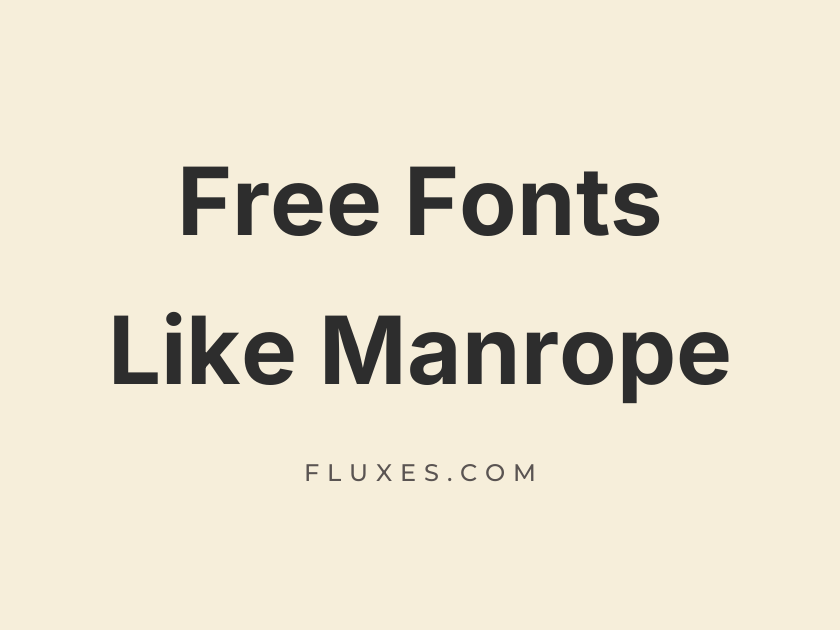
16 Best Free Fonts Similar to Manrope
Manrope has become a go-to typeface for SaaS dashboards, startup landing pages, and product documentation, prized for its geometric bones softened with just enough humanist warmth to stay readable at small UI sizes. Its semi-condensed proportions and quietly distinctive rounded terminals make it a favorite among designers who want something more characterful than Arial but calmer than a display grotesk. If you are hunting for free Google Fonts alternatives with that same balance of structure and approachability, there is a genuinely strong crop of options built for interfaces, branding systems, and long-form web text alike.
1. Inter
Built for screens, buttons, and data-dense dashboards
Inter is the reference point most UI designers measure everything else against, including Manrope itself. It was engineered specifically for computer screens, with tall x-heights and near-neutral letterforms that hold up beautifully in dense interfaces, form fields, and tables. Where Manrope leans slightly warmer and more editorial, Inter stays clinical and endlessly flexible, which is exactly why it has become the default sans for so many product teams.
2. Plus Jakarta Sans
Friendly geometry for modern brand systems
Of everything on this list, Plus Jakarta Sans probably sits closest to Manrope in spirit: geometric skeleton, rounded corners on select cuts, and a friendly, slightly playful demeanor that still reads as professional. It works equally well as a headline face for a fintech landing page or as body copy in a mobile app. Pair it with a monospace for code snippets and it instantly feels like a contemporary product suite.
3. Sora
Confident headlines for tech and startup pages
Sora carries a bit more geometric swagger than Manrope, with rounder bowls and a slightly wider stance that gives headlines real presence. It is best deployed at display sizes, hero sections, pricing tables, feature callouts, where its confident shapes can breathe. At small body text it can feel a touch heavy, so many teams pair it with a lighter grotesk for paragraphs.
4. DM Sans
Clean interface text that never gets muddy
DM Sans was designed low-contrast and sturdy specifically for UI work, and it shows: even at 12px in a settings panel, letters stay distinct and legible. It lacks some of Manrope’s personality in the details, but that restraint is the point when you need a workhorse face that disappears into the product. Consider it whenever the brief calls for clarity over character.
5. Space Grotesk
Technical warmth with a coding-friendly edge
Space Grotesk descends from a monospaced source, and you can still feel that engineering DNA in its slightly quirky curves and generous spacing. It brings a technical, almost retro-futurist mood that suits developer tools, crypto products, and portfolios that want to feel sharp without turning cold. Use it for headings and pair it with a plainer grotesk for long text, since its idiosyncrasies are more fun in short bursts.
6. Outfit
Minimal geometric shapes for clean layouts
Outfit strips things down to near-minimalist geometry, all circles and clean diagonals, giving it a crisp, modern feel close to Manrope’s simplicity but with less warmth in the curves. It is a natural fit for portfolio sites, minimalist e-commerce, and anywhere a designer wants typography to stay out of the way of imagery. At heavier weights it makes a striking, poster-like headline.
7. Lexend
Readability-focused type for accessible interfaces
Lexend was developed with reading-fluency research behind it, aiming to reduce visual stress and improve comprehension speed, which makes it a smart pick for accessibility-minded products and educational platforms. Its proportions are wide and open rather than condensed like Manrope’s, trading a bit of density for extra clarity. Teams building for varied literacy levels or vision needs often reach for it first.
8. Public Sans
Neutral, government-grade type for civic products
Public Sans was commissioned by the U.S. government’s design system, so neutrality and unimpeachable legibility were the entire brief. It is plainer than Manrope, with fewer stylistic flourishes, but that plainness is an asset for civic platforms, documentation, and any interface where the type should never draw attention to itself.
9. Work Sans
Versatile grotesk for editorial and product design
Work Sans was optimized for on-screen text at medium sizes, and it carries a slightly wider, more optically balanced structure than Manrope. It slides comfortably between editorial layouts and UI work without ever feeling out of place. Its long-standing popularity means it also pairs predictably well with serif display faces if a project needs contrast.
10. Figtree
Soft rounded letterforms for approachable brands
Figtree brings a gentle roundness to its terminals that makes it feel approachable in the way Manrope’s rounded corners do, without tipping into a full rounded-sans look. It reads well in app onboarding flows, marketing emails, and anywhere a brand wants to feel human rather than corporate. It is a newer addition to Google Fonts but has quickly become a favorite for lightweight, friendly interfaces.
Always test at your actual UI sizes before committing; a few of these fonts shine at 24px and above but soften at small caption sizes.
Manrope’s popularity made sense the moment product teams needed a sans that felt modern without trying too hard, and the alternatives above cover that same territory from a dozen different angles. Whether the priority is raw legibility, brand personality, or a distinctly technical mood, there is a free Google Fonts option here that can slot into a design system without a licensing conversation.